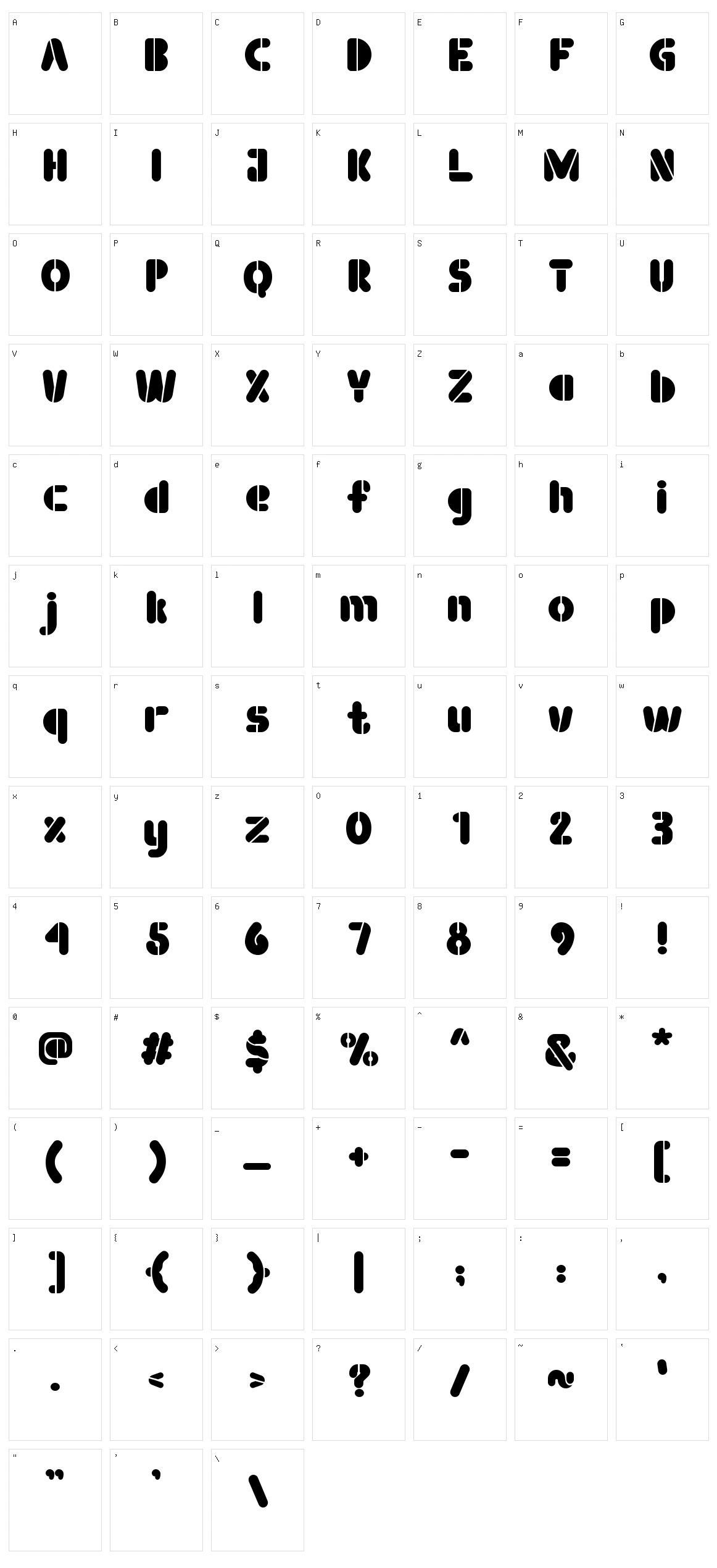
The free font Time Bomb is carefully designed by Modestype Studio, showcasing a thoughtful balance of creativity and usability and falls under the Stencil font style. When you download the ZIP file, it contains only 11.25 KB of font files, making it lightweight and quick to download. Please review the license details below to understand permitted usage and distribution rights. If license information is not available, we recommend using this font for personal projects only or contacting the author directly for commercial usage permissions.